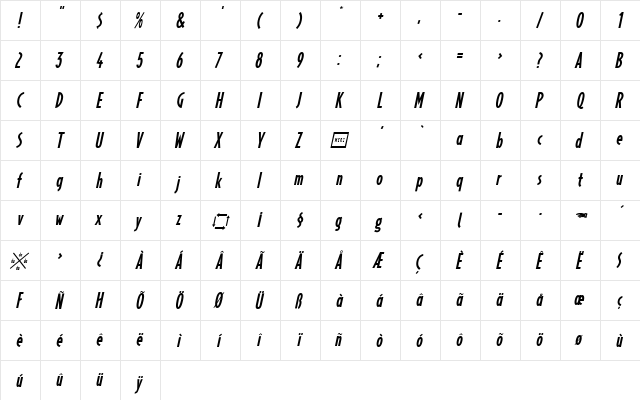
MerzRegular Regular
Design Context for MerzRegular Typeface
MerzRegular is a composed and adaptable typeface that performs quietly and consistently across a wide range of design contexts.
Pro Tip: Pair MerzRegular with a font of contrasting weight or personality to build a more expressive typographic hierarchy.